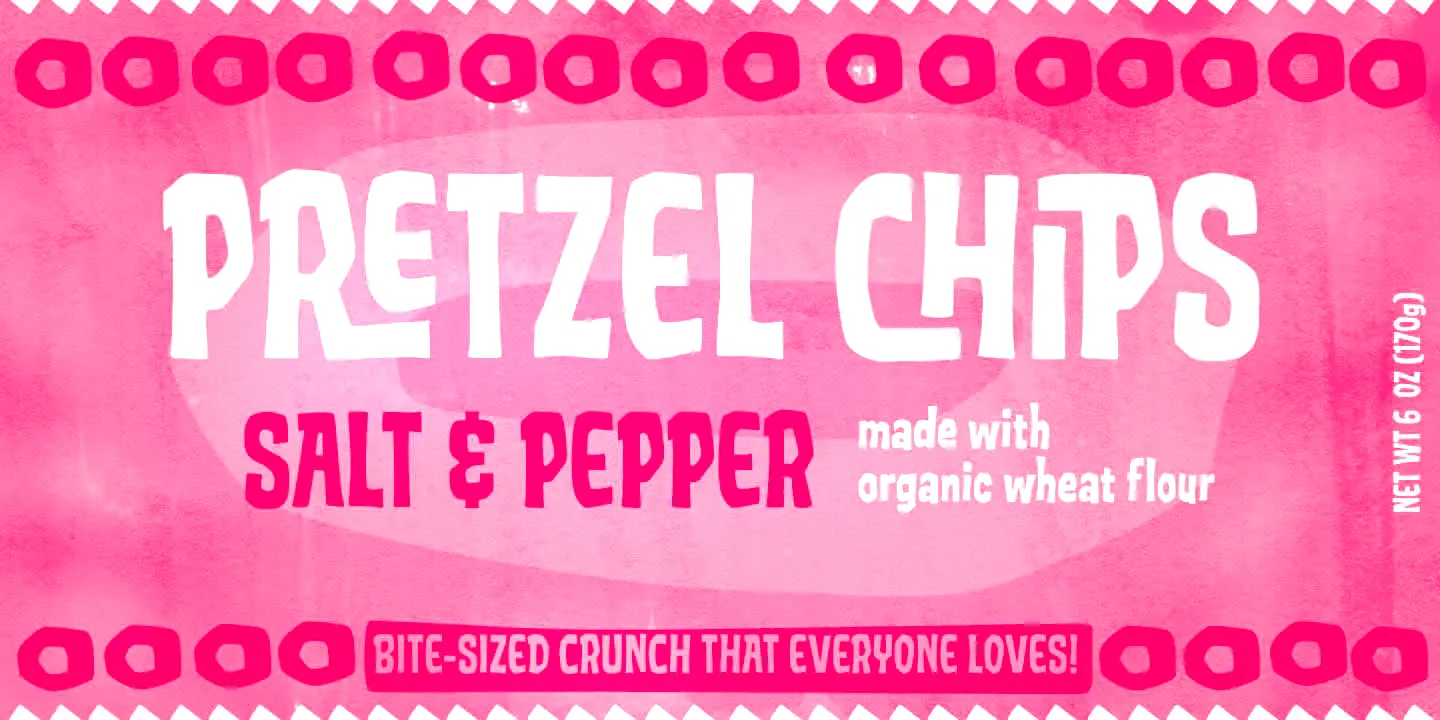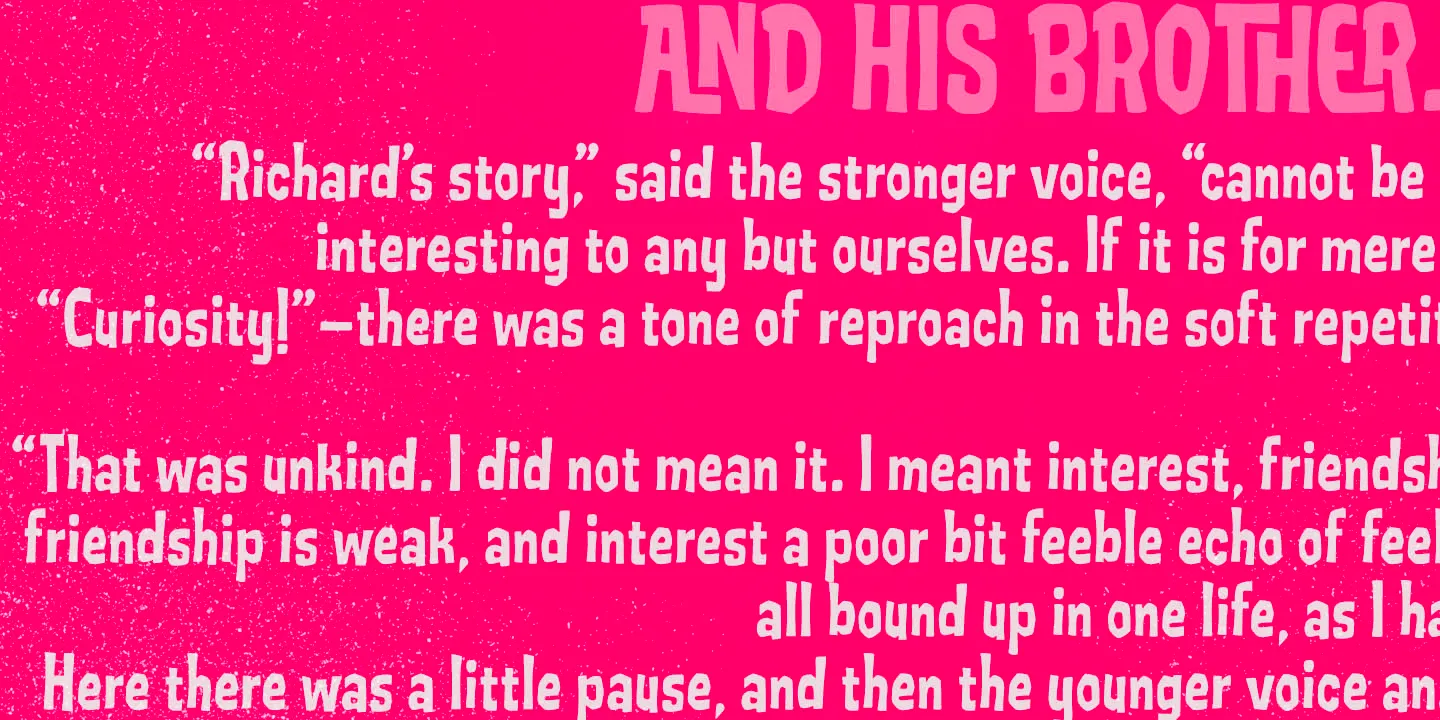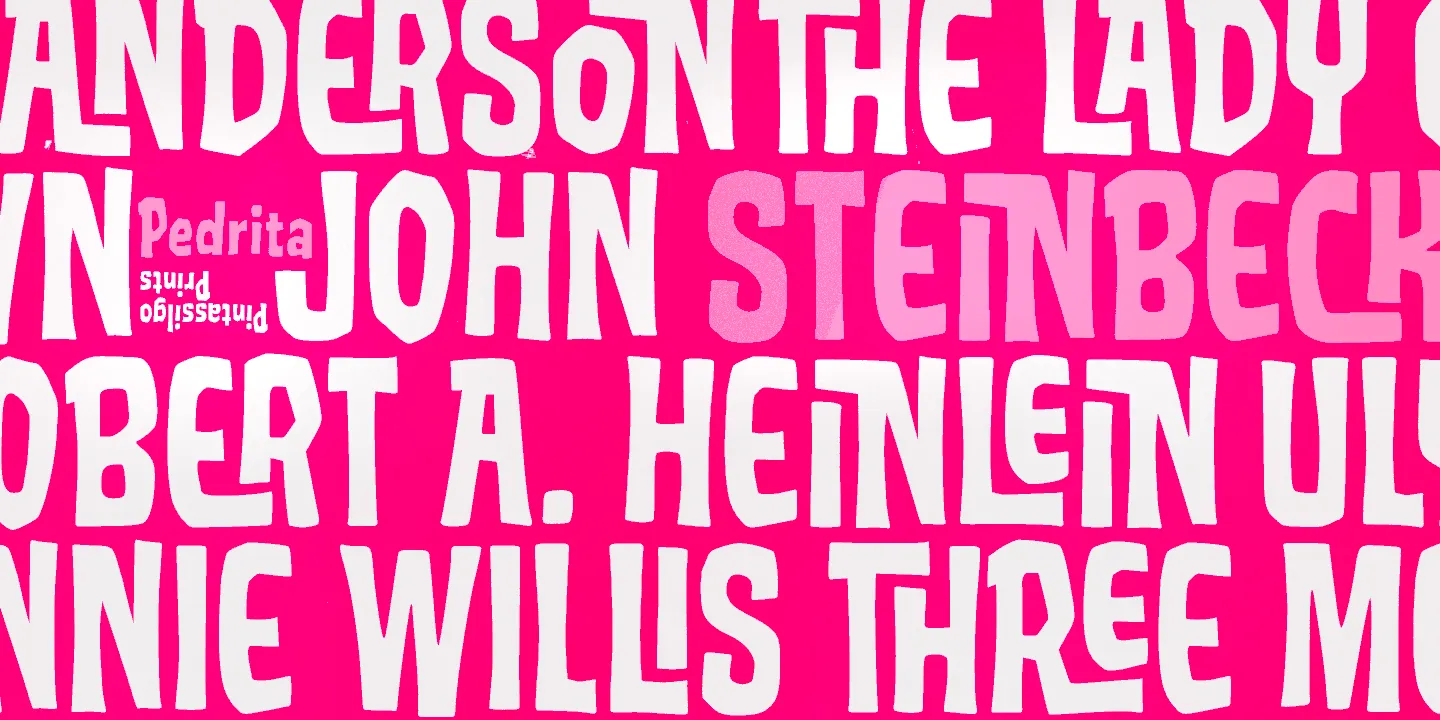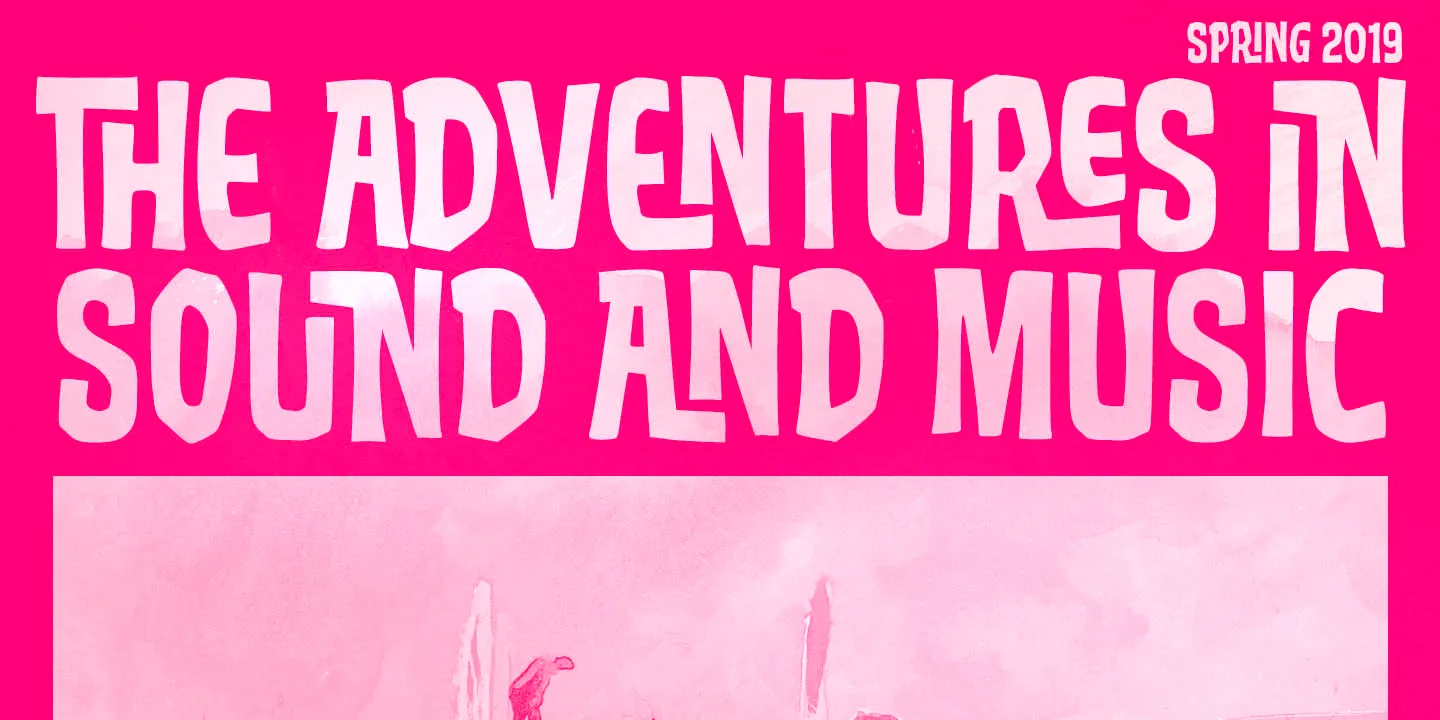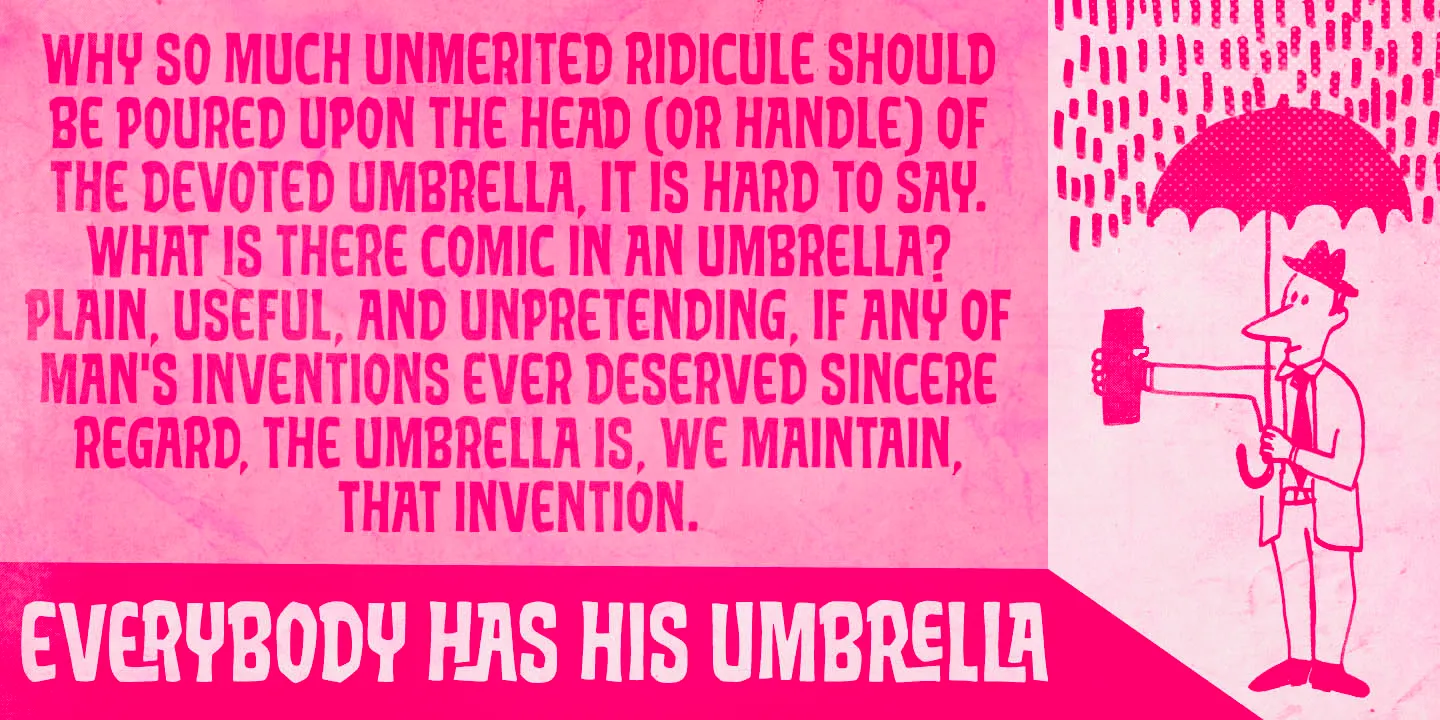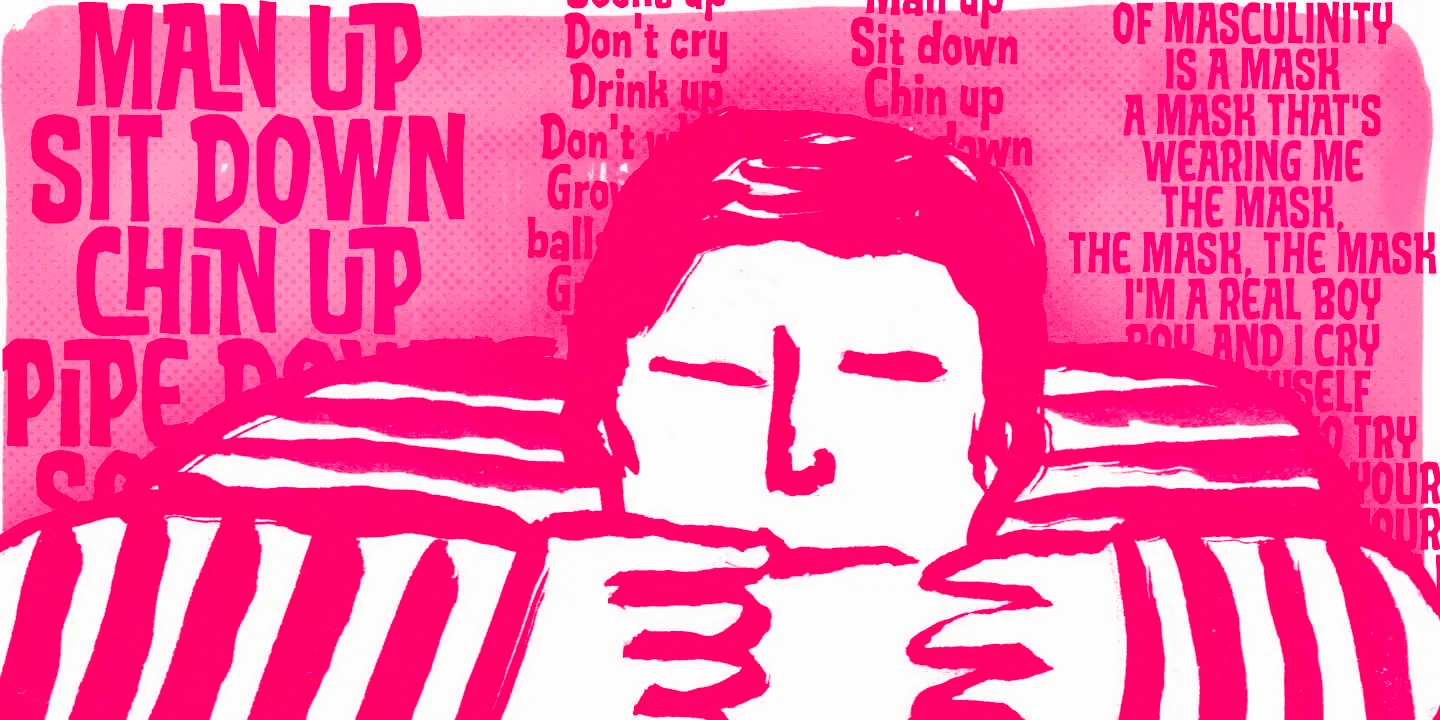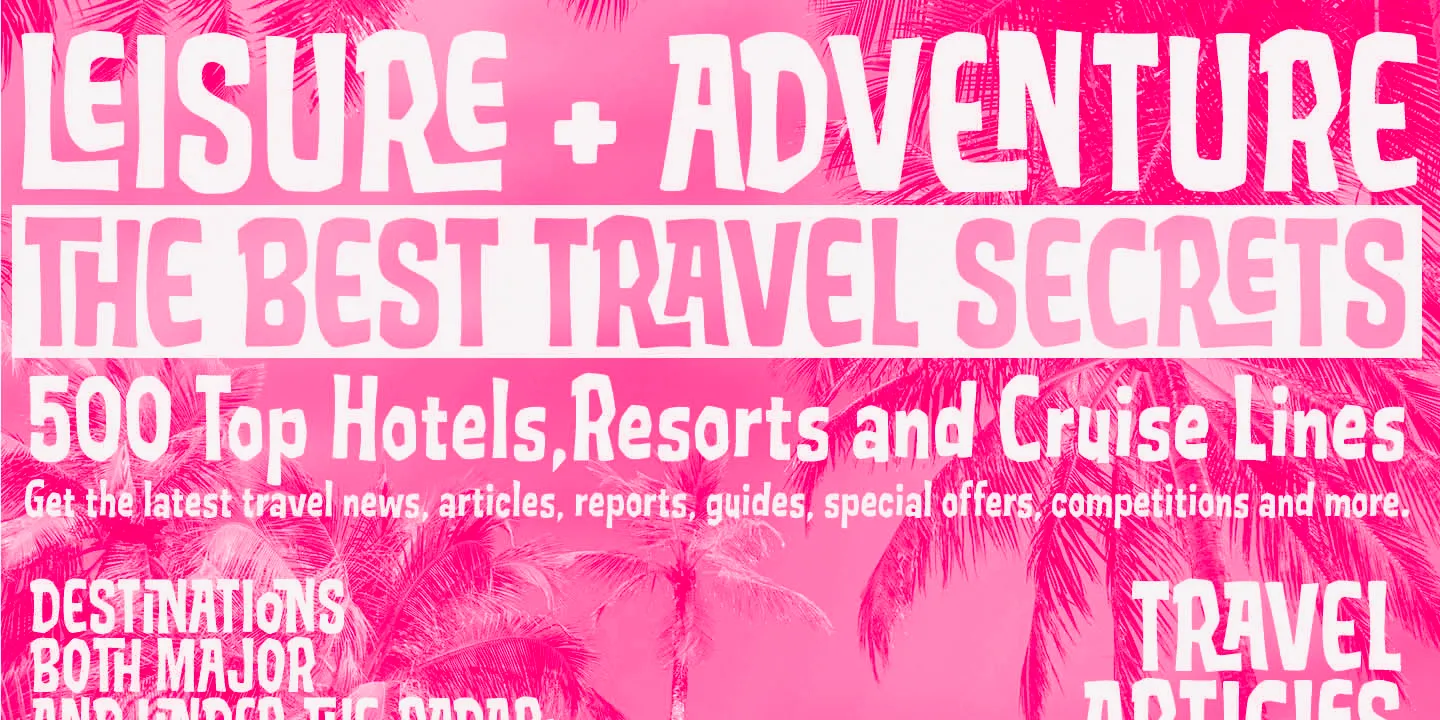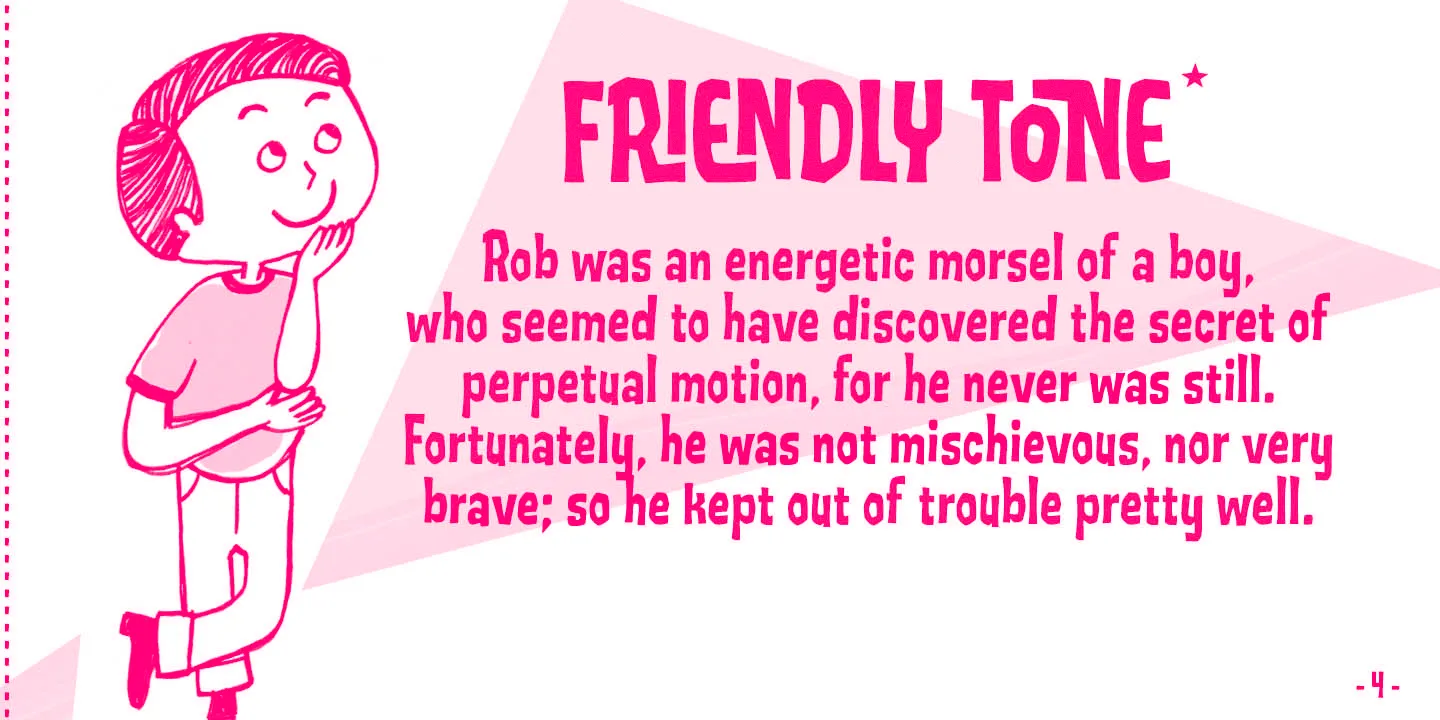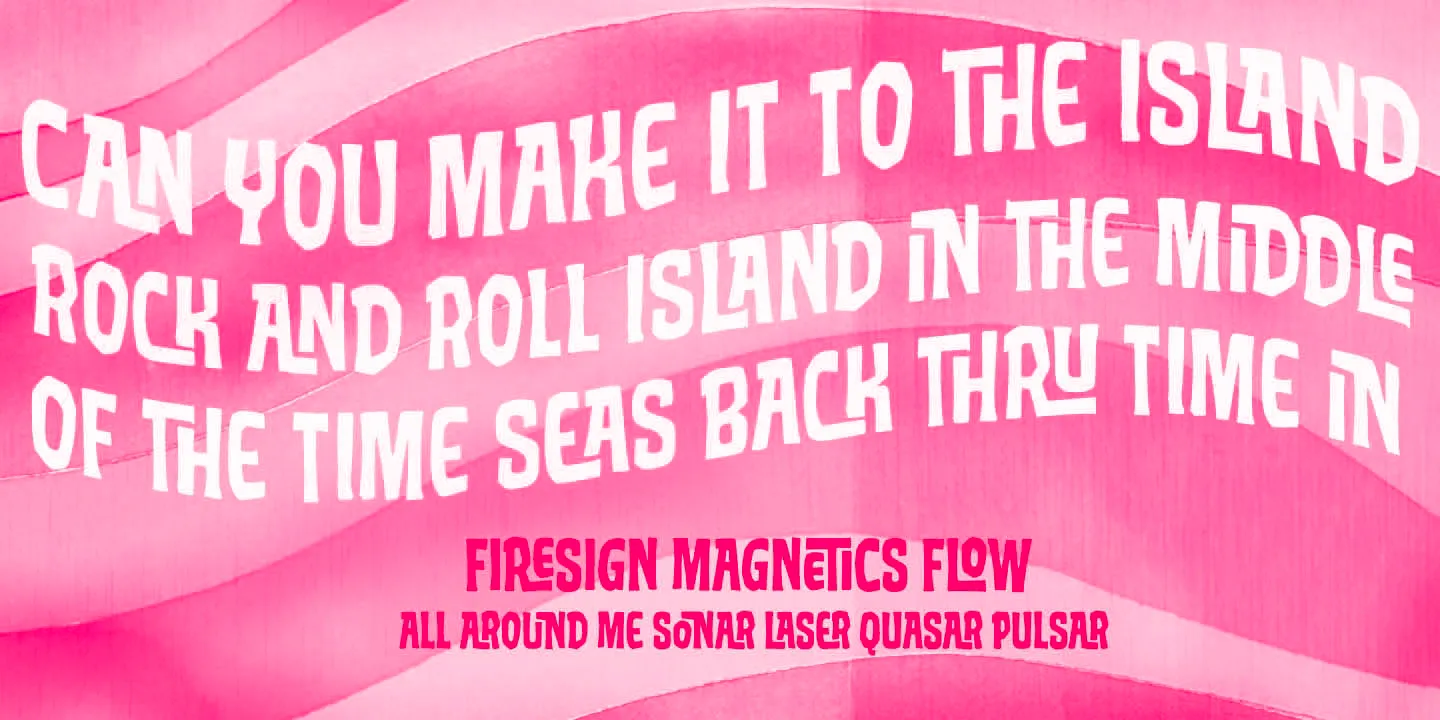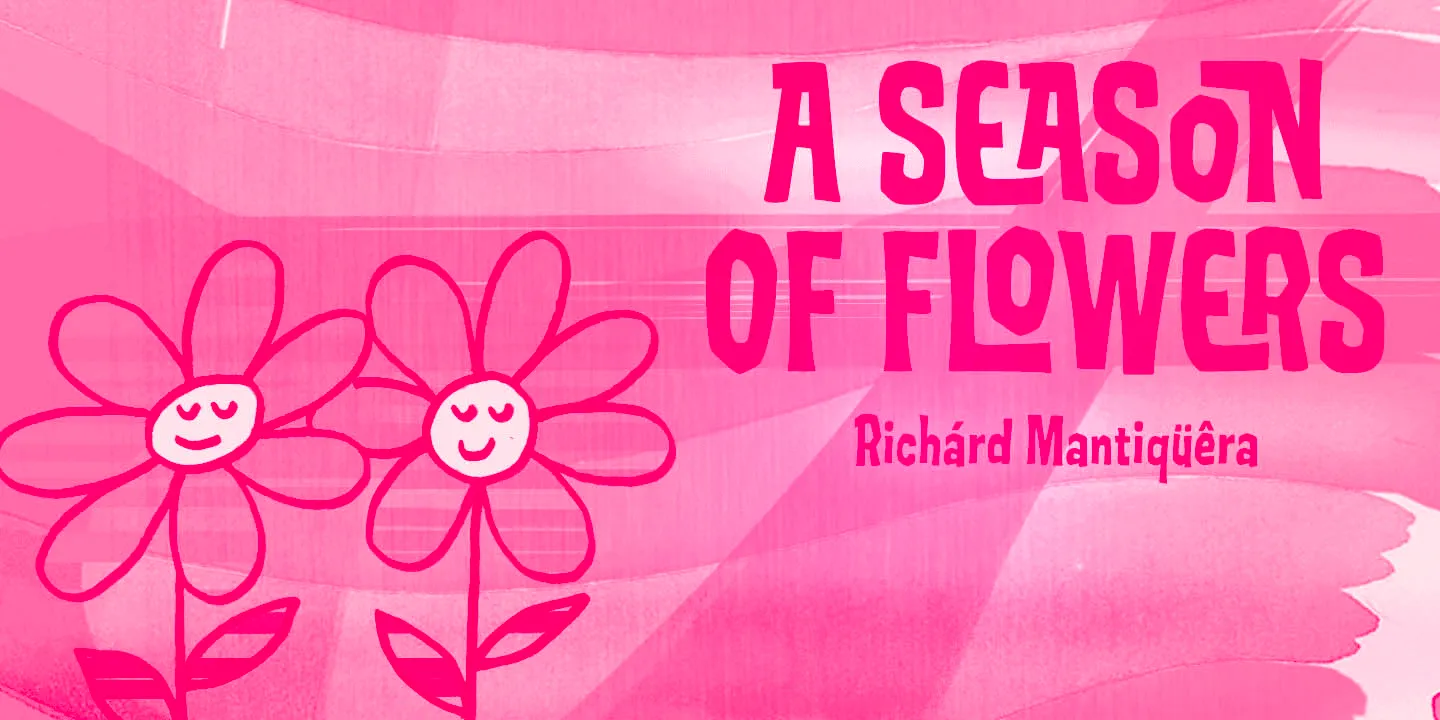
Pedrita Fonts
Pedrita
Pedrita is an unconventional condensed display font. A bit bold, somewhat showy, and entirely authentic. Sometimes, you want to go unnoticed; sometimes you don’t. The chunky forms and subtle wonkiness make these friendly letterforms playful but never unruly, designed for strong visibility! Don’t miss the handful of interlocking ligatures! Great for use in adventurous book covers, film posters, restaurant design, or anywhere character and handmade charm go hand in hand.
• Discretionary Ligatures
• Swashes